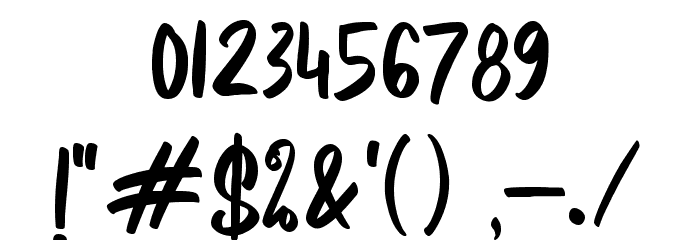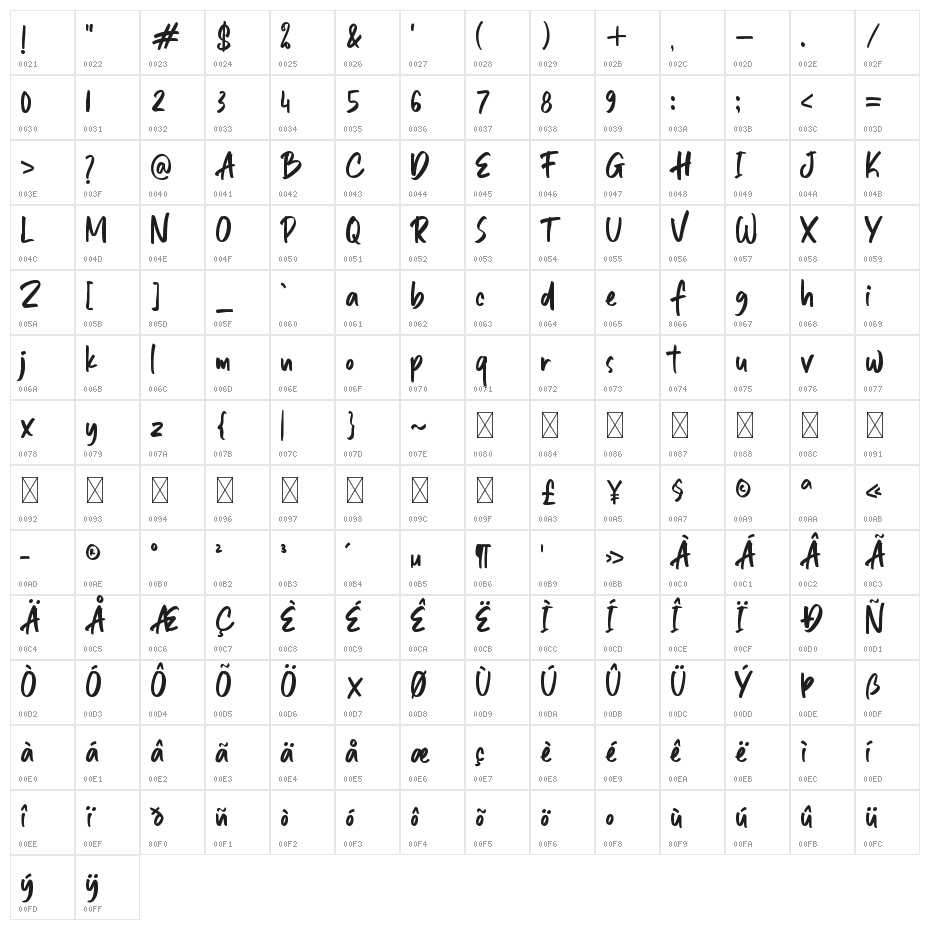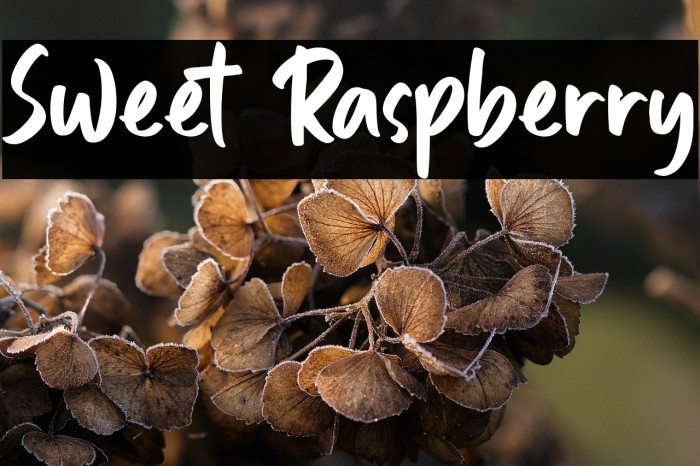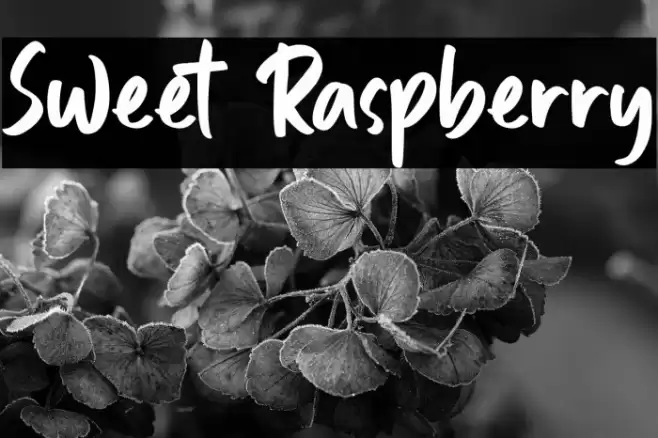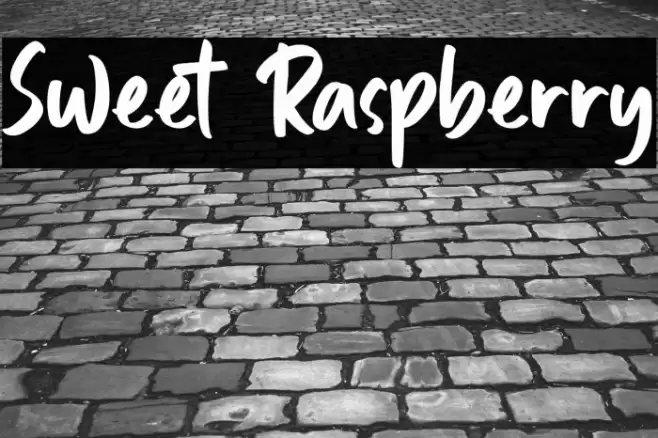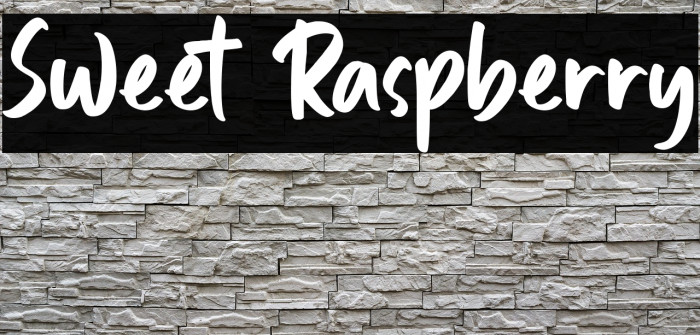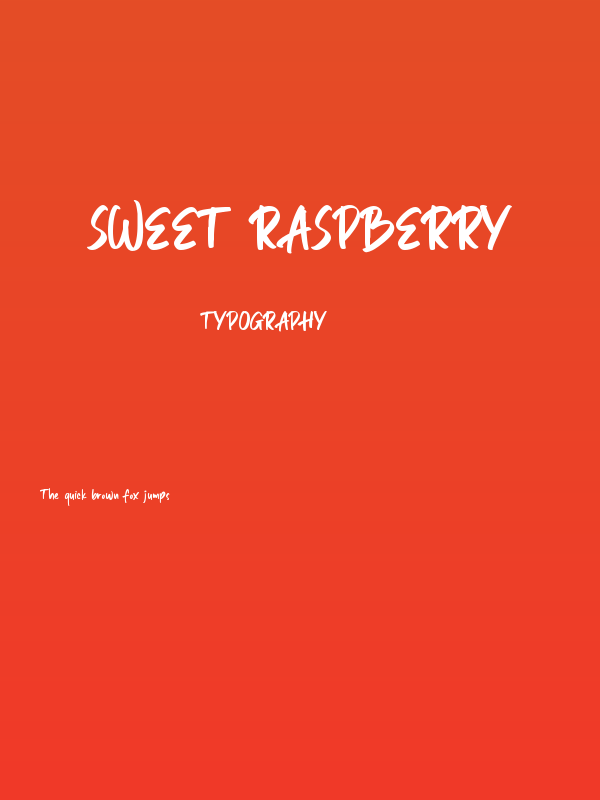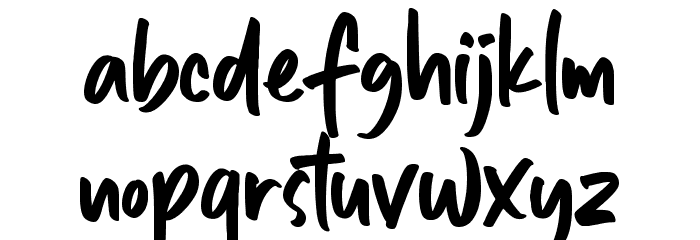
Sweet Raspberry Font
Sweet Raspberry Description
This font features a playful and energetic handwritten style, characterized by its bold and slightly irregular strokes. The letters have a casual, informal appearance, with a dynamic flow that suggests movement and spontaneity. The uppercase and lowercase letters maintain a consistent style, with rounded edges and a slight slant that adds to the font's lively personality. The numbers and special characters are equally expressive, fitting seamlessly with the overall aesthetic. This font is perfect for projects that require a personal touch or a sense of fun and creativity.
| Overall Style | Playful, Casual, Energetic |
| Proposed Projects | Ideal for greeting cards, playful branding, children's books, and creative social media graphics. |